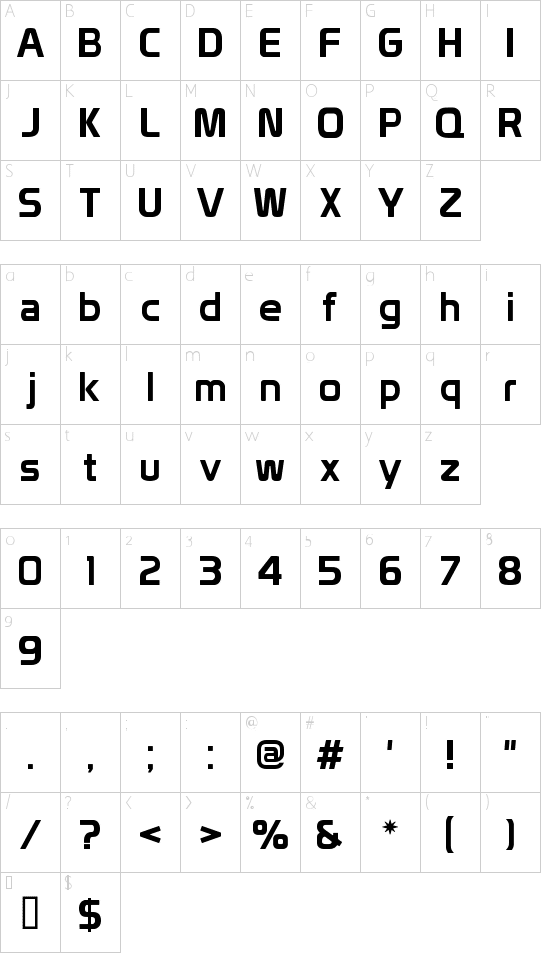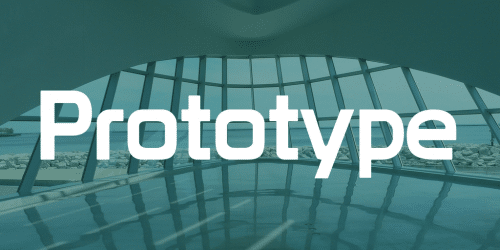
Prototype Font
PROTOTYPE Is an original font based on the signage typeface used at Walt Disney World’s Epcot theme park, designed by Justin Callaghan.
It can also be seen on the monorails and in Disneyland’s Tomorrowland. Version 2.0 contains a full latin character set — all capitals and lowercase, punctuation, numbers, symbols, and international characters.